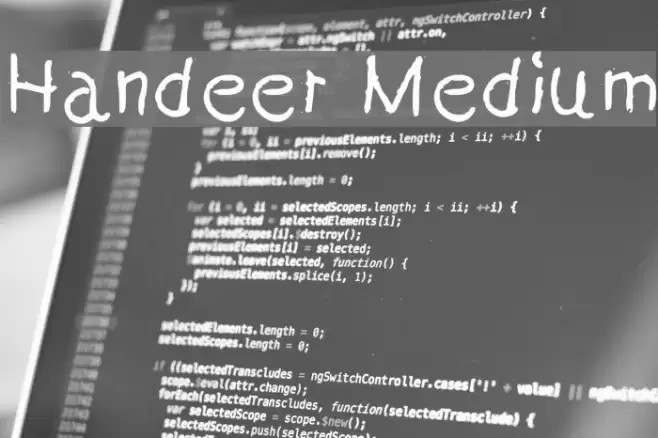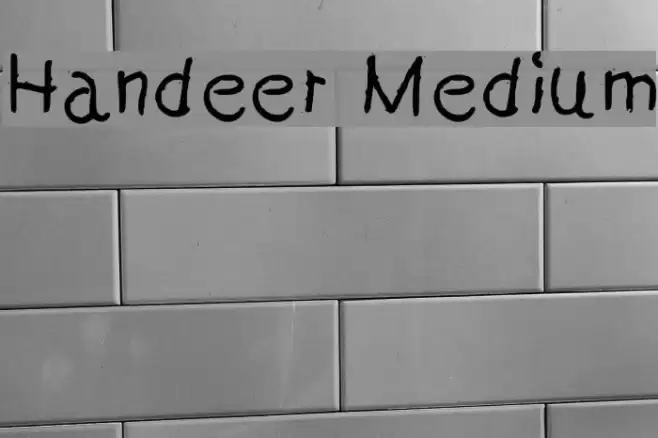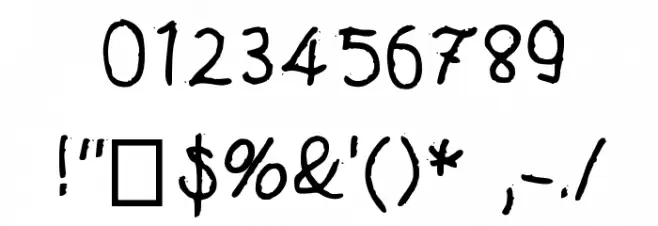
Handeer Medium Font
Handeer Medium Description
This font exhibits a playful and informal handwritten style, characterized by its irregular strokes and slightly uneven baseline. The letters have a casual, organic feel, with varying stroke thickness that adds to its charm. The uppercase and lowercase letters maintain a consistent style, while the numerals and special characters blend seamlessly with the overall design. The font's unique personality makes it stand out, offering a sense of creativity and individuality.
A playful, handwritten font with irregular strokes and an informal style from Handwritten fonts.
- Proposed Projects: Ideal for creative projects such as greeting cards, invitations, personal branding, and artistic posters.
- Overall Style: Casual, Artistic
- Use Case: Headlines, Artistic projects, Personal branding